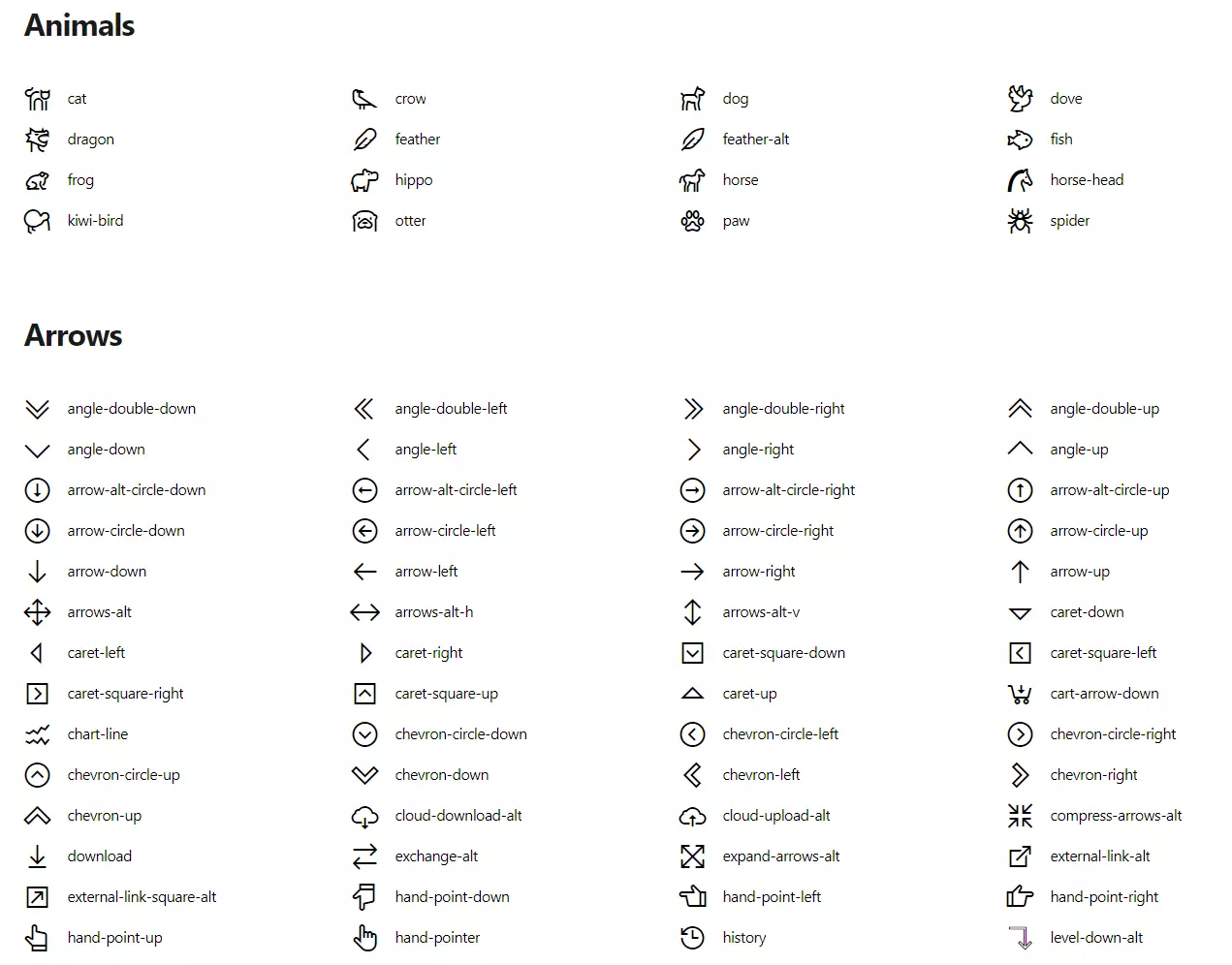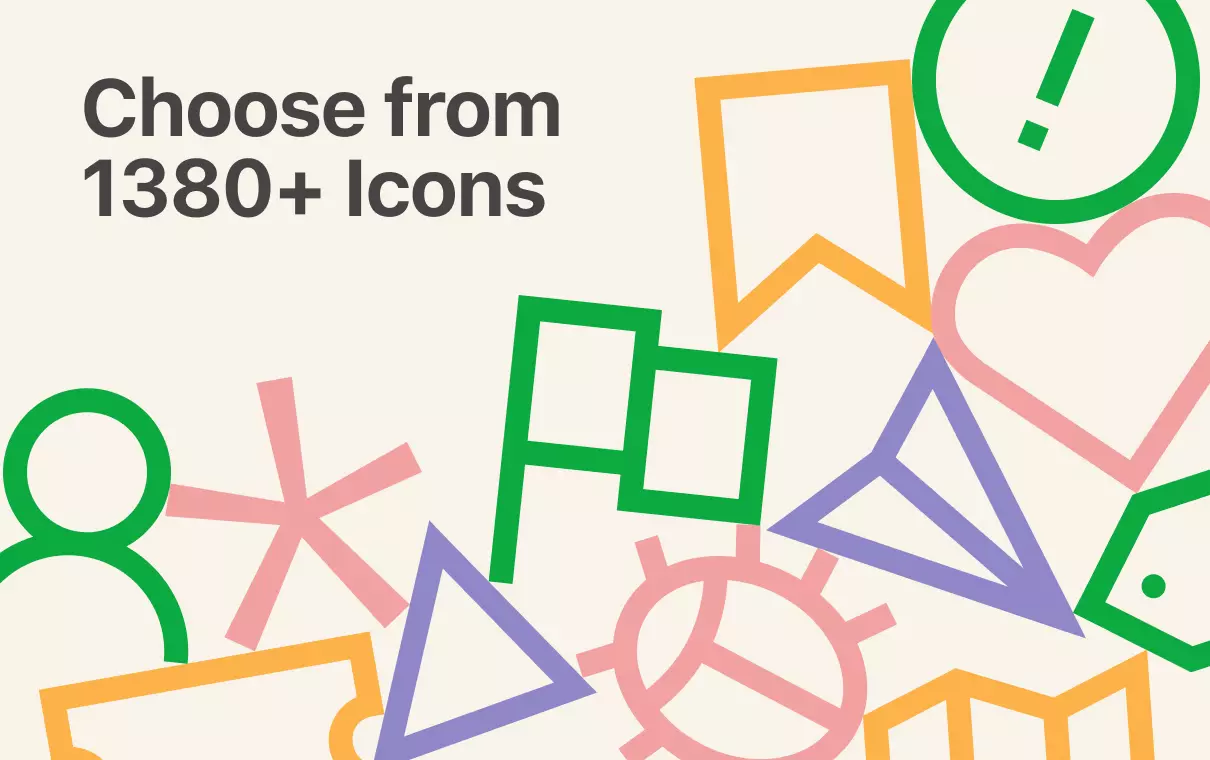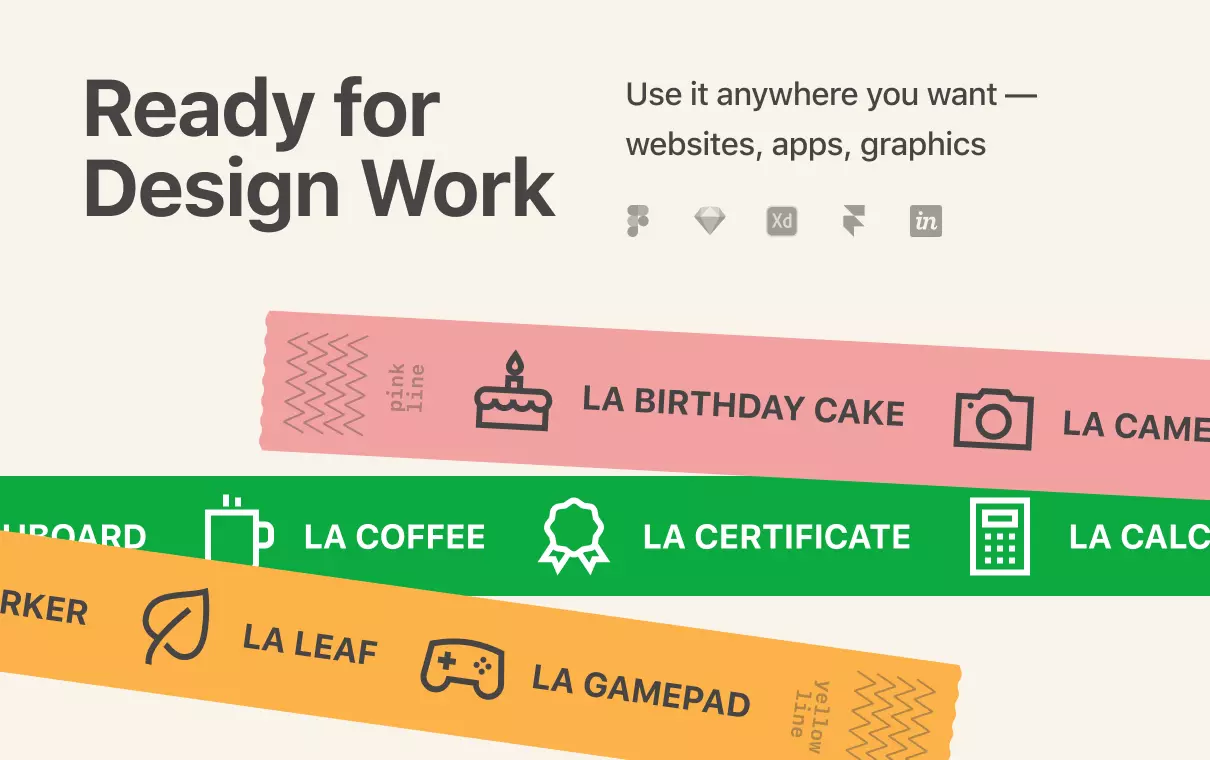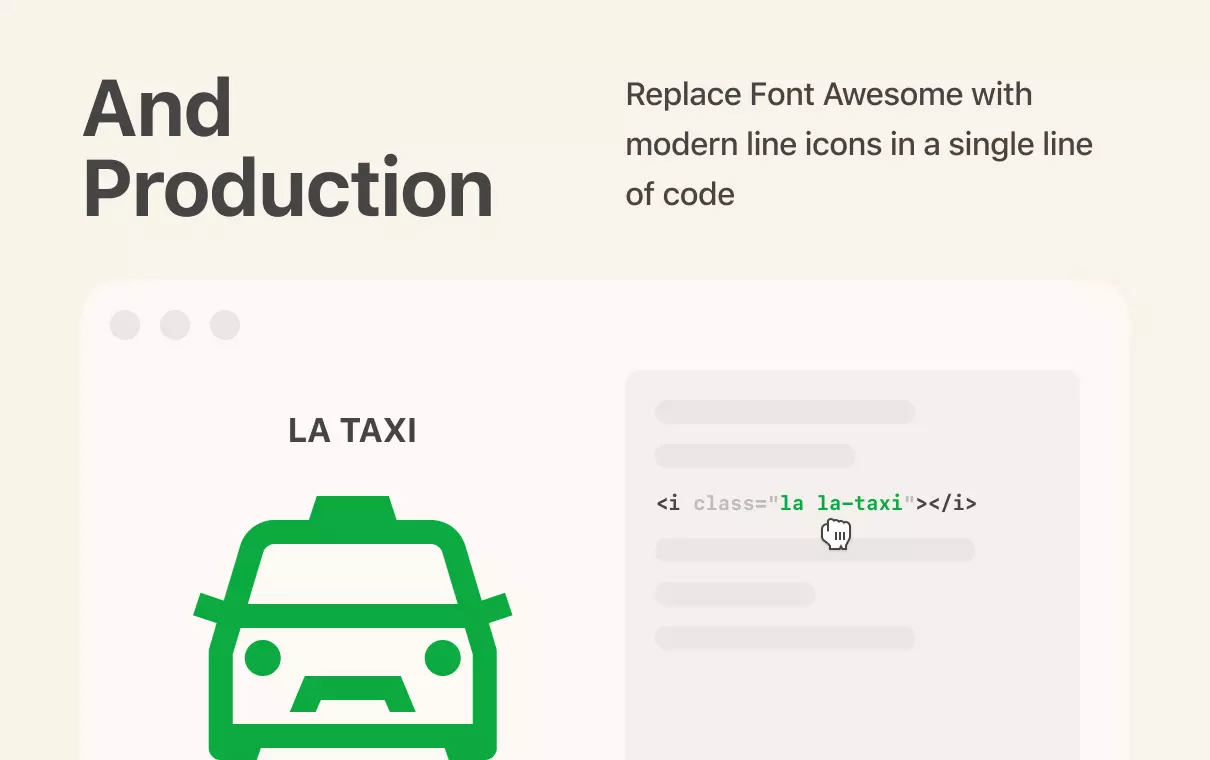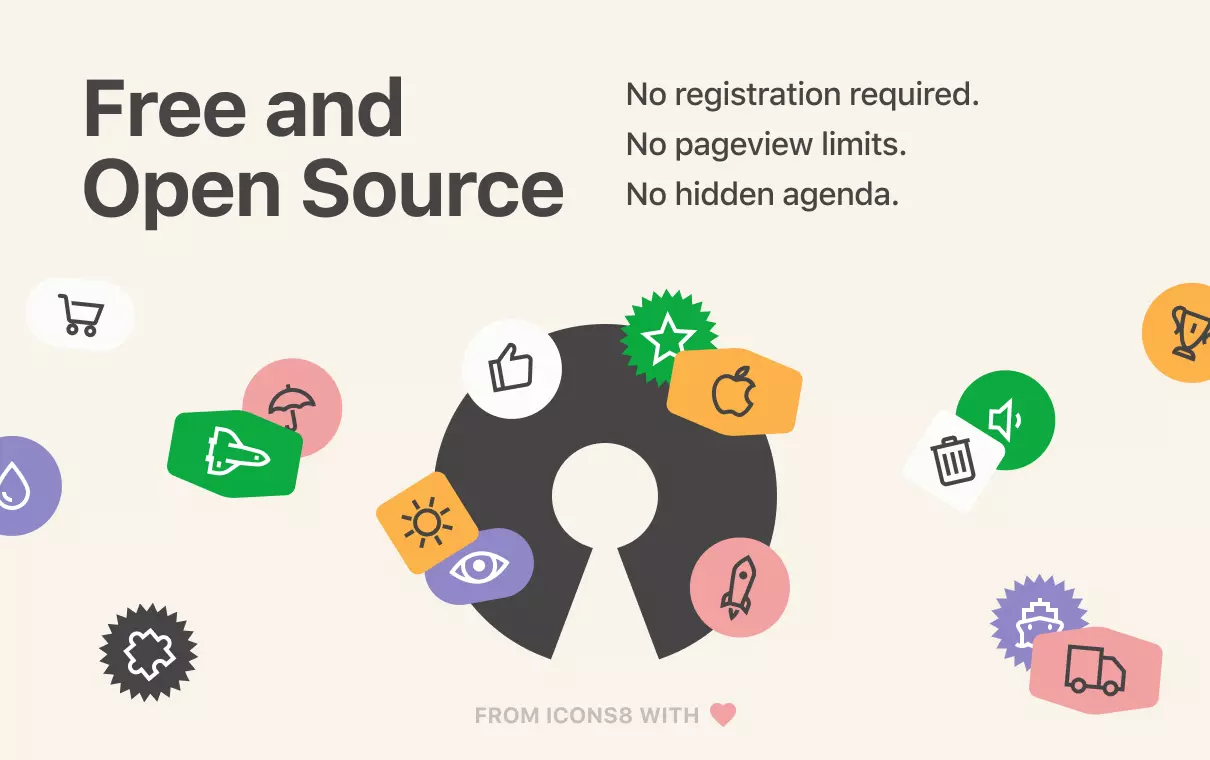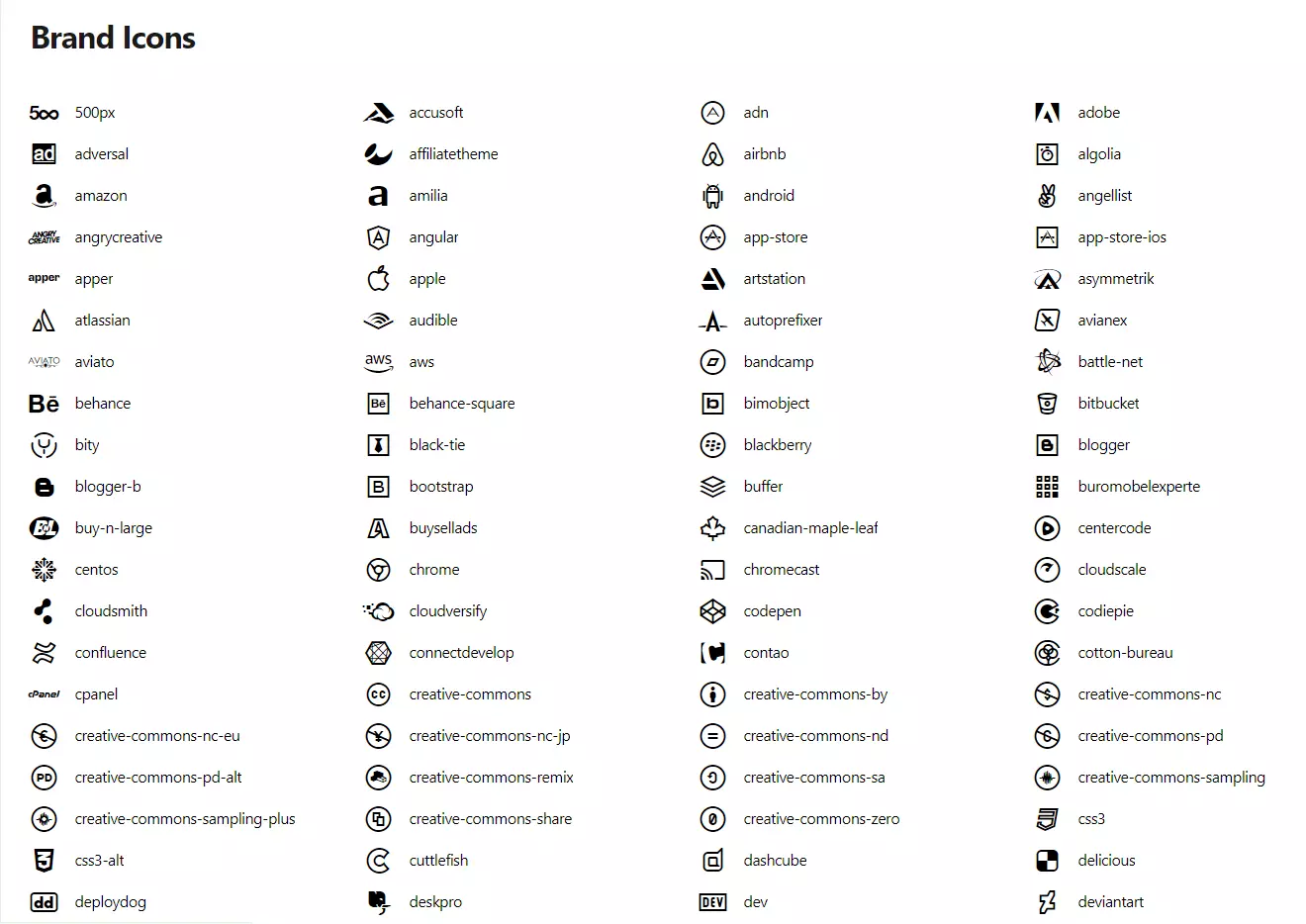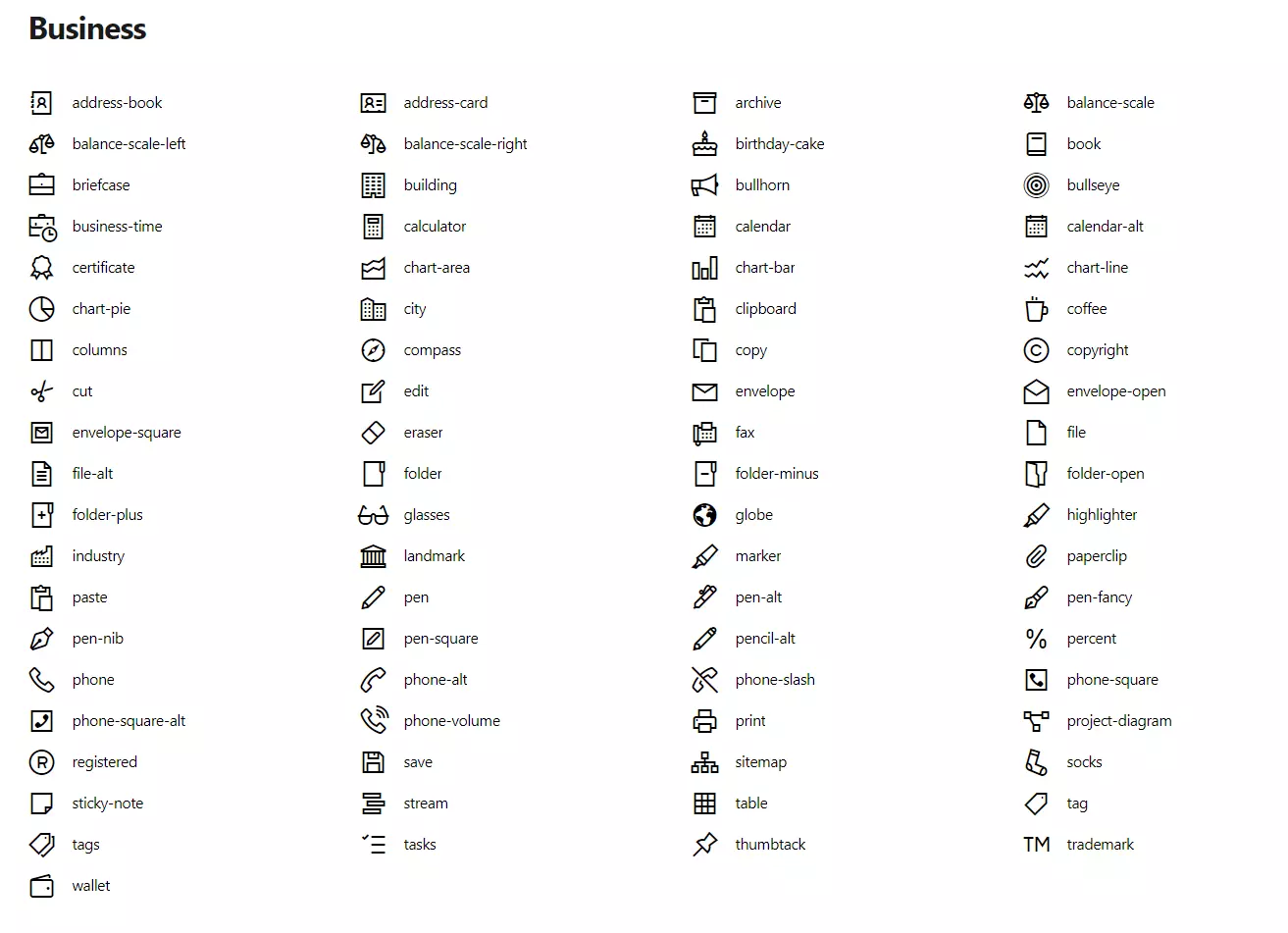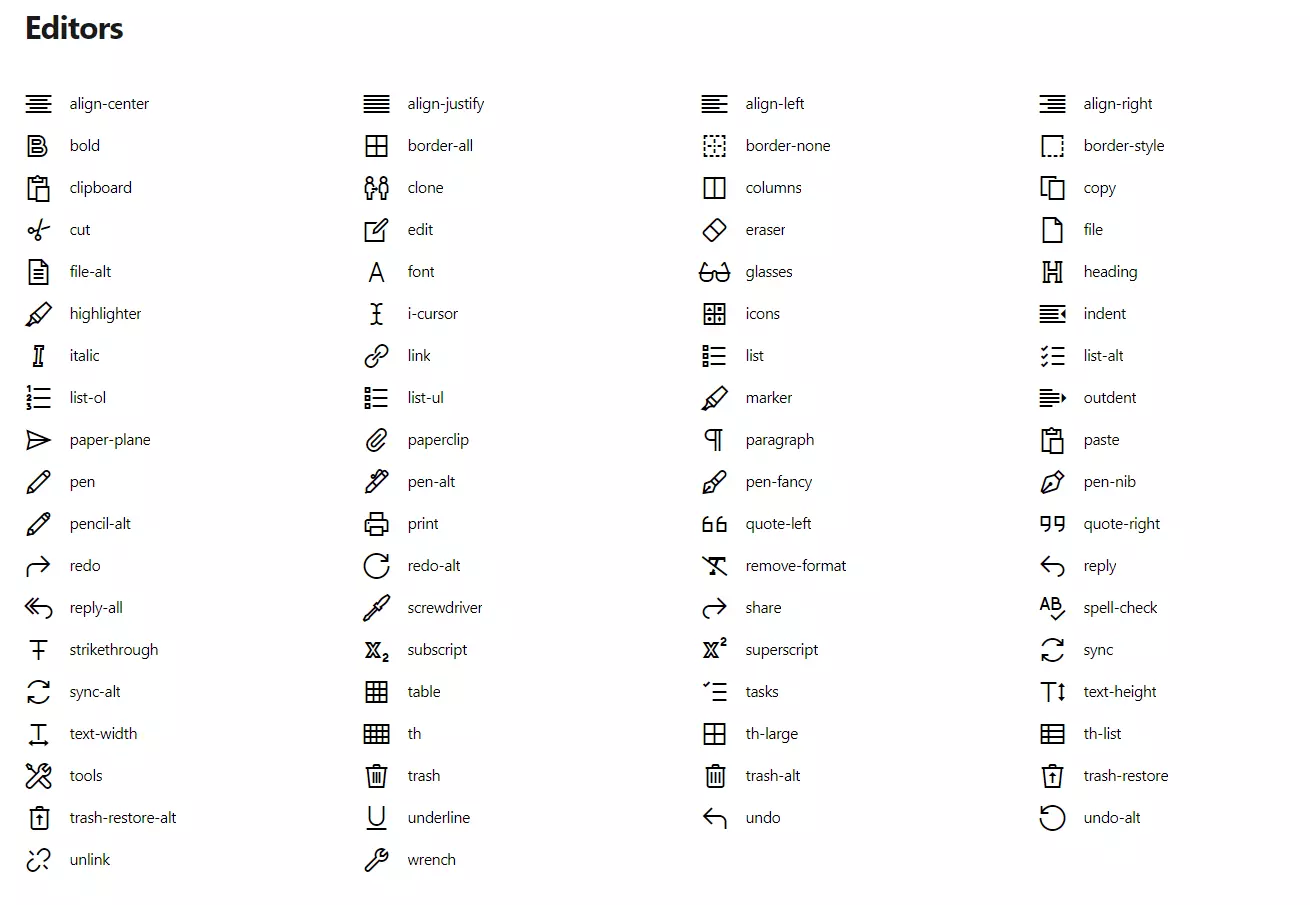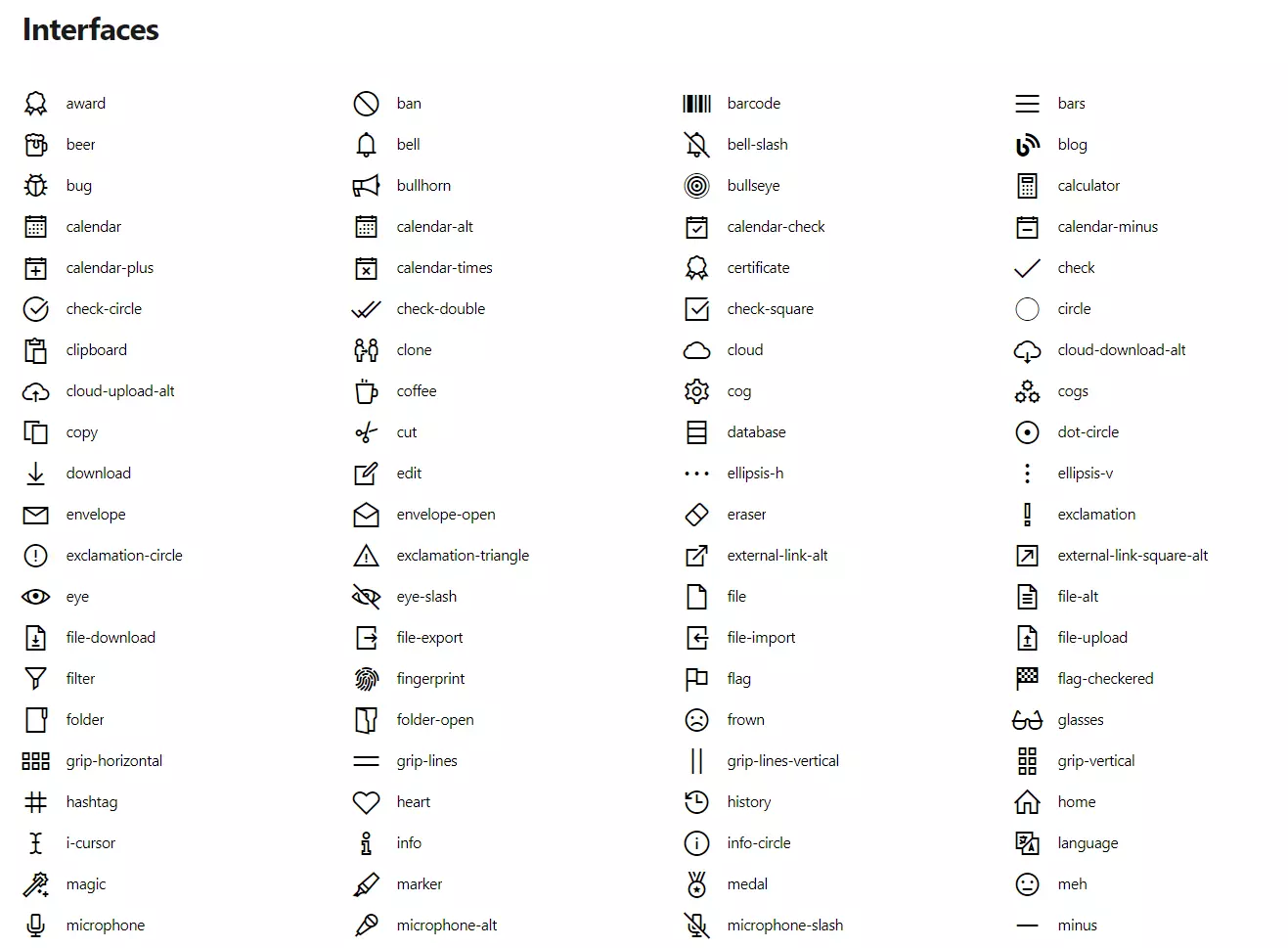
If you are a fan of Font Awesome but want more variety, we’ve just released the one for you. Meet Line Awesome, a free open-source icon font made from 1380+ elegant line icons. It’s ready to use in one line of code. Join the release party on Product Hunt or explore the details about it right here.
Line Awesome Benefits
Basically, Line Awesome offers designers and developers:
• Clean, pixel-perfect designs
• SVG icons
• Entire Font Awesome catalog covered
• Free and open-source icons
More About the Tool
We love Font Awesome, but sometimes wish it offered more than one style. Line Awesome is a handy alternative built on modern line icons. Check some examples below:
Animals and Arrow icons
emoji icons line awesomeEmoji icons
business icons line awesomeBusiness icons
brand icons line awesomeSome Brand icons
editing iconsEditors icons
free outline interface iconsSome Interfaces icons
Offering complete coverage of FA with 1380+ icons, you will never have to worry about hunting for a missing icon. These beautiful icons are ideal for use in web projects, designs, or apps.